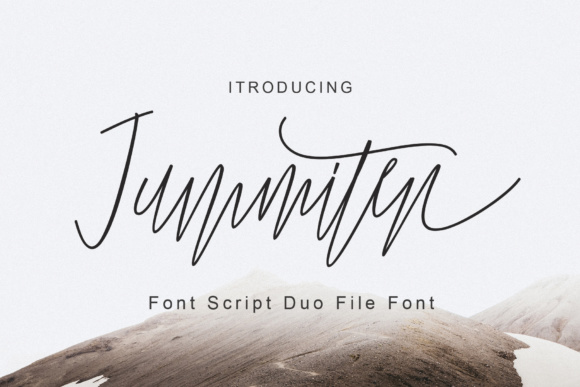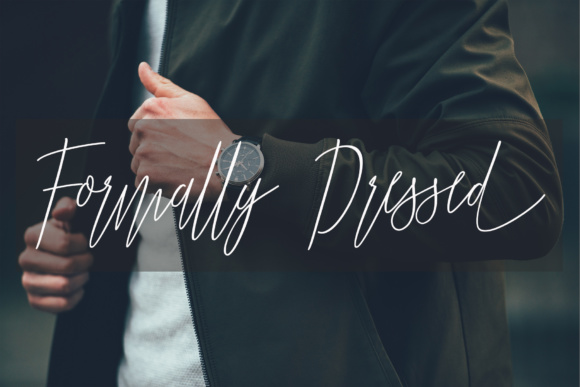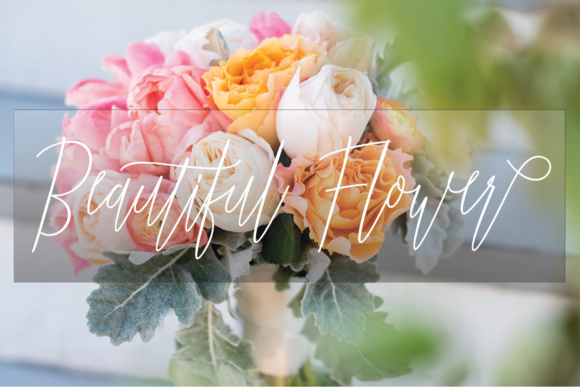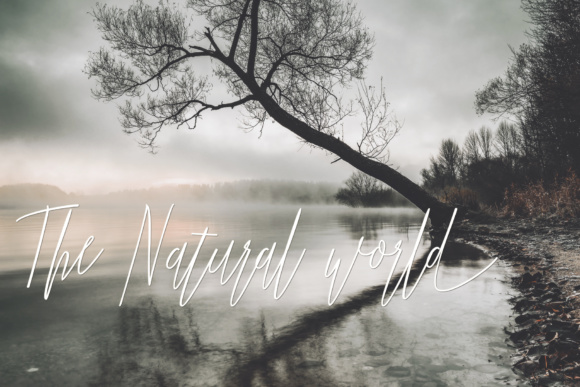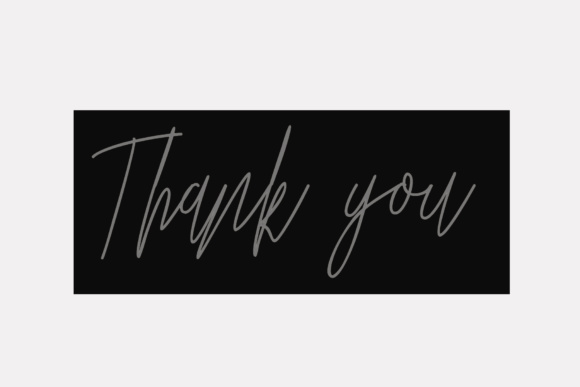
Jummiten Font
About Jummiten Font
The Jummiten is a modern calligraphy font. It was handwritten and has unique and modern forms of calligraphy. The Jummiten is perfect for modern designs.